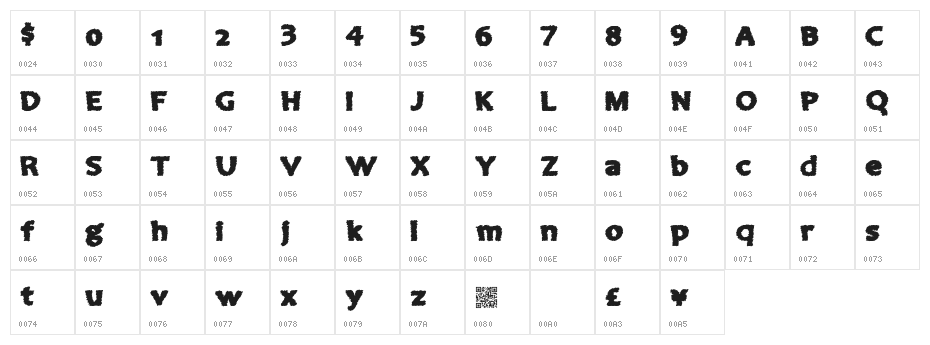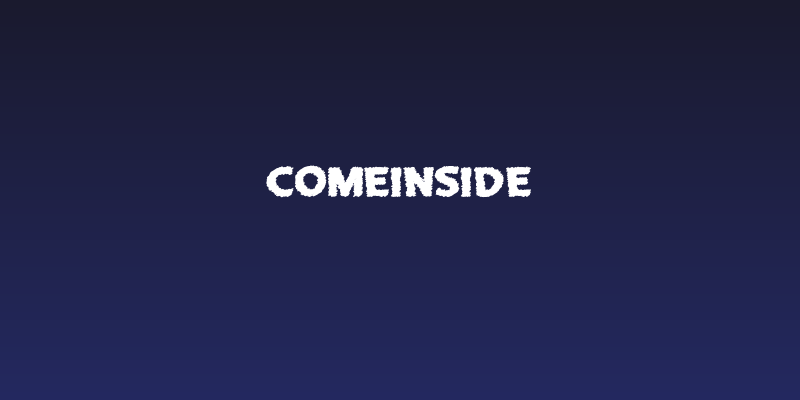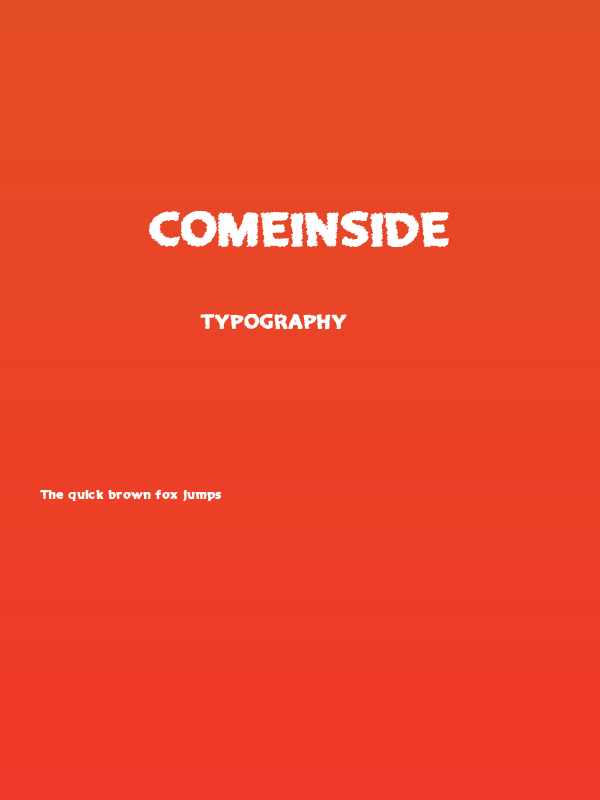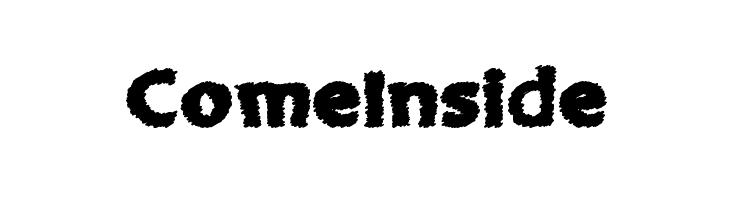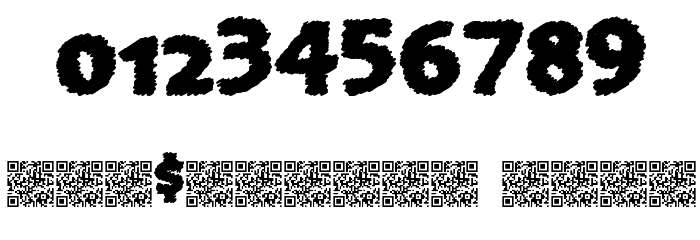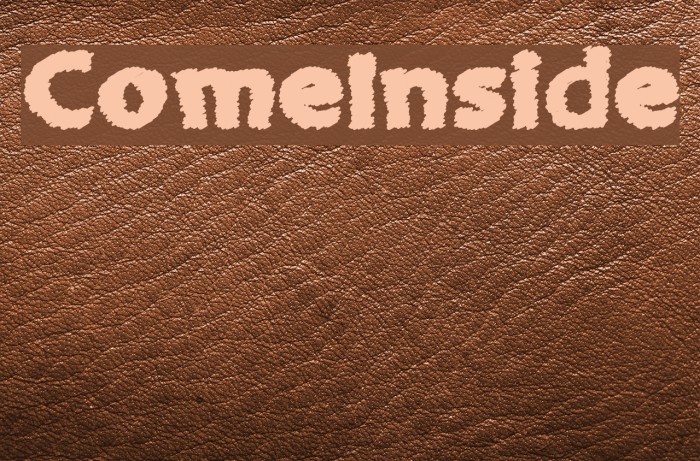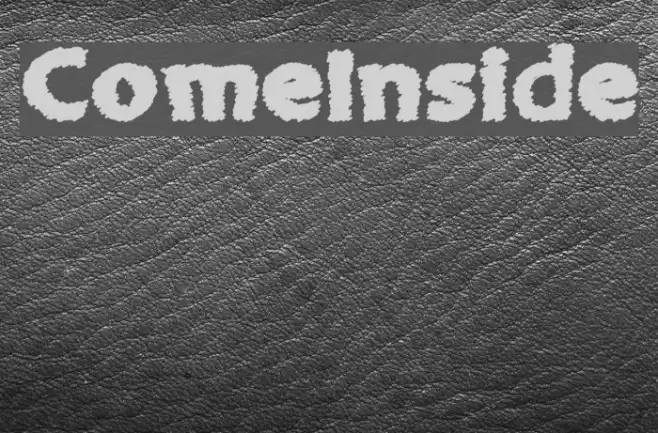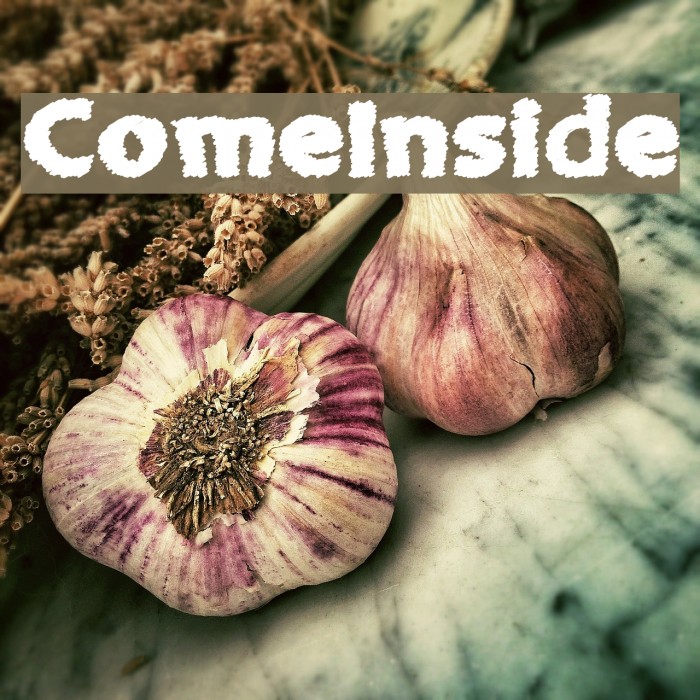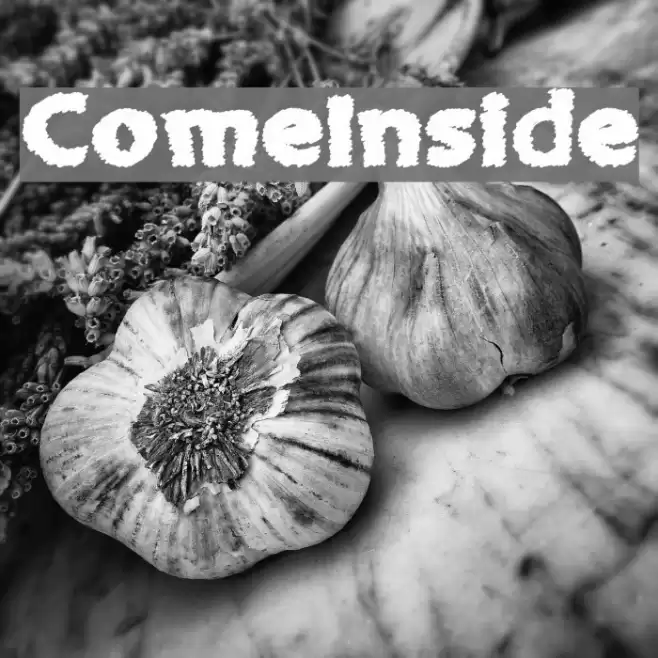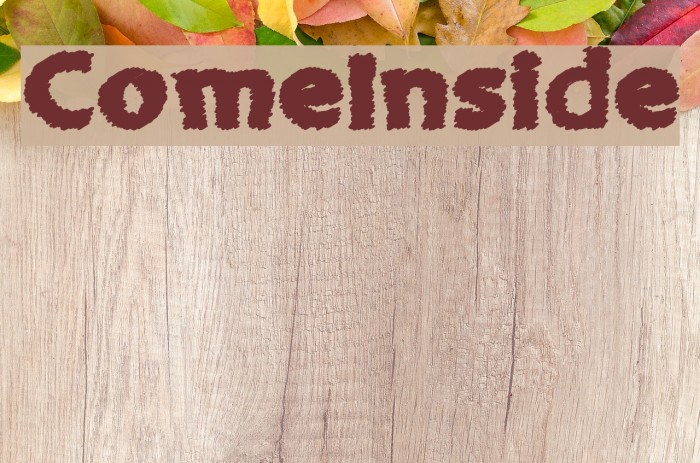
ComeInside Font
✎ Distorted Eroded
| Категория | Distorted Eroded |
| Общий стиль | Playful, Whimsical, Decorative |
| Рекомендуемые проекты | Ideal for children's book covers, playful branding, party invitations, and creative posters. |